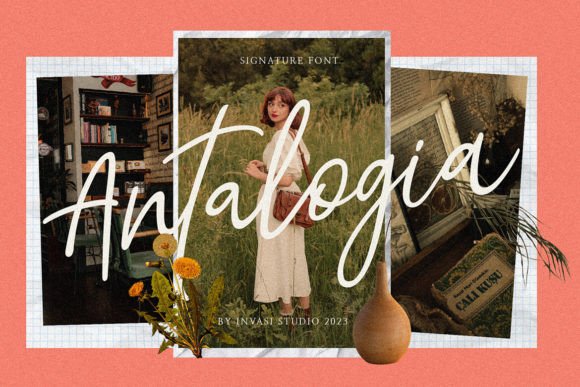
Introducing Antalogia, the script font that will captivate your audience and leave them awe-inspired. This elegant signature font is a masterpiece of digital artistry, meticulously crafted to exude luxury and sophistication in every character. As an e-commerce SEO expert, I can confidently say that Antalogia is not just a font; it's an experience that will transform your designs into timeless works of art.
With its graceful and flowing strokes, Antalogia dances across your screen, leaving a trail of elegance and refinement in its wake. Each letter is a testament to the dedication and skill of its creator, invasistudio, who poured their heart and soul into crafting this masterpiece.
Whether you're a seasoned designer or just starting your creative journey, Antalogia is the perfect companion for your projects. Its versatility knows no bounds, effortlessly adapting to a myriad of design applications. From headings that command attention to invitations that exude grace, logotypes that leave a lasting impression to flyers that ignite excitement, Antalogia is the key to unlocking your creative potential.
Step into a world of endless possibilities with Antalogia. Create greeting cards that warm the heart, product packaging that captivates the eye, book covers that transport the reader to another realm, and printed quotes that inspire and motivate. With Antalogia, your designs will transcend the ordinary and become extraordinary.
In a world saturated with mediocrity, Antalogia is a beacon of originality and beauty. It's the font that will set your work apart, leaving an unforgettable mark on your audience. Embrace the power of Antalogia and watch as your designs blossom into masterpieces.